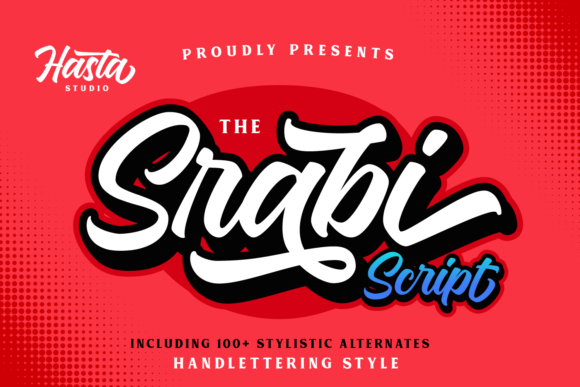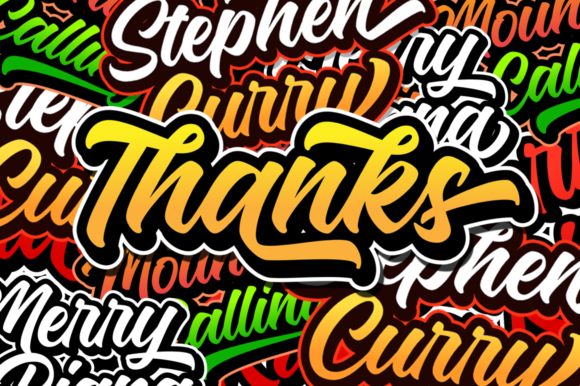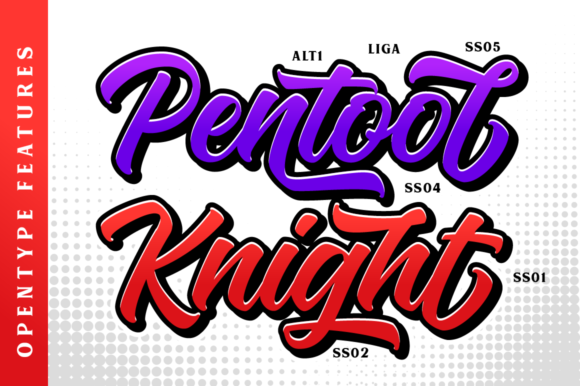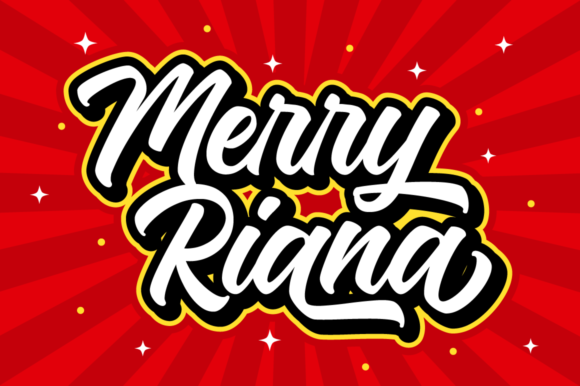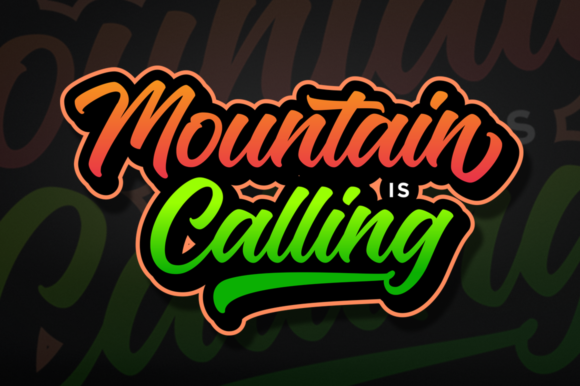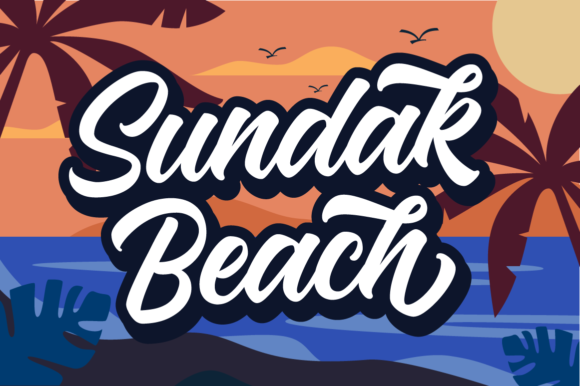
HomeScript FontsSrabi Font Script Fonts Srabi Font FacebookXPinterestWhatsApp Srabi Font Poster 2 Srabi Font Poster 3 Srabi Font Poster 4 Srabi Font Poster 5 Srabi Font Poster 6 Srabi Font Poster 7 Srabi Font Poster 8 Srabi Font Poster 9 Srabi Font Poster 10 About Srabi Font Srabi features an iconic vintage style and is the perfect font for any design project that requires a bold feel! DOWNLOAD ON CREATIVE FABRICAThis font is sold and delivered by Creative Fabrica. Font Canyon may earn a commission if you buy through this link. People also explored Angelica Font Harmonica Font Himponis Font Anthony Font Angelia Script Font Charming Font Pistona Font Happy Easter Egg Font Heartbeat Font 281 0 TagsSrabi Font Previous articleHalycoon Script FontNext articleGrace & Oliver Font LEAVE A REPLY Cancel reply Comment: Please enter your comment! Name:* Please enter your name here Email:* You have entered an incorrect email address! Please enter your email address here Website: Save my name, email, and website in this browser for the next time I comment. Personal Use Free Advantage Personal Use Free Read more about this font Child Writing Free Personal Use Free Read more about this font Ardilla Font Personal Use Free Read more about this font Hashira Mt Personal Use Free Read more about this font BLOG Transform Your Website: Elevate Your Typography with 7 Best Web Font Generators Are you ready to transform your website's typography from ordinary to extraordinary? Great! Today, we're diving into the world of web font generators, which... Where to Buy American Fonts Online in 2024 Best Fonts for YouTube Videos: Make Your Thumbnails Stand Out Free Fonts Risk: Why Free Fonts Can Be Dangerous for Designers